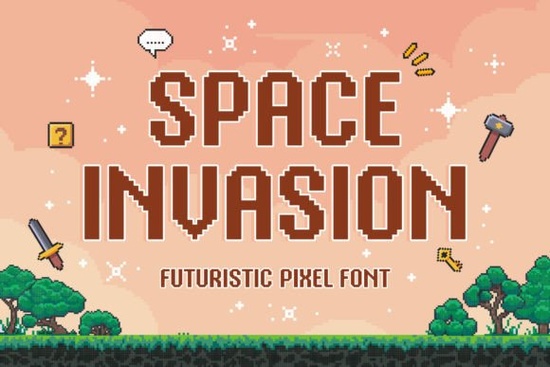
If you're working on a project that blends retro gaming vibes with sci-fi aesthetics, the Space Invasion Font might be exactly what you need. This pixel-style typeface captures the charm of old-school arcade displays while feeling right at home in modern cyberpunk or space-themed designs. Whether you’re building an indie game, designing merch for a print-on-demand store, or adding flair to a website banner, Space Invasion delivers crisp, nostalgic readability without sacrificing futuristic energy.
Pixel fonts can be tricky they often look dated or too rigid but Space Invasion strikes a balance. Each character is crafted with intentional spacing and clean geometry, so it scales well across digital and print formats. That makes it especially useful for creators who need consistency whether they’re mocking up a mobile game UI or printing T-shirts with alien-themed slogans.
What kinds of projects work best with Space Invasion?
This font shines in contexts where atmosphere matters as much as message. Think:
- Indie video game titles, HUD elements, or dialogue boxes
- Sci-fi posters, album covers, or zine layouts
- Cyberpunk-inspired branding for small businesses (think coffee shops with neon signs or tech repair logos)
- Print-on-demand products like mugs, phone cases, or wall art featuring retro-futuristic quotes
Because it’s monospaced and built on a grid, Space Invasion also pairs well with other design elements like glitch effects, scan lines, or vector-based starfields common touches in digital art communities.
How does it compare to other display fonts?
Not all display fonts carry the same mood. If you’ve used something like the Junior Play Font, you know it leans playful and rounded great for kids’ content but not for intergalactic battles. Similarly, the Grunge Groovy Font brings a 70s rock vibe that clashes with sleek tech themes.
On the other hand, if your project leans vintage but not spacey, you might consider the Vintage Monograms Pack for elegant initials, or the Greek Varsity Font for collegiate or athletic energy. But when your vision includes laser guns, alien invasions, or dystopian cityscapes, Space Invasion fits naturally without forcing the theme.
And yes if you’re wondering how it stacks up against similar pixel fonts out there, Space Invasion Font stands out for its consistent stroke width and legible lowercase set, which many free pixel fonts skip entirely.
Tips for using Space Invasion effectively
Because it’s a display font, avoid using it for long paragraphs. Stick to headlines, buttons, labels, or short phrases. Here’s how to get the most out of it:
- Pair it wisely. Use a clean, neutral sans-serif (like Inter or Roboto) for body text so the pixel style doesn’t overwhelm.
- Mind the size. It looks best at medium to large sizes below 16px, details may blur on screens.
- Add subtle effects. A soft outer glow or slight color gradient can enhance its digital feel without breaking the pixel illusion.
- Test in context. If you’re designing for print, check how it renders on fabric or paper some textures can soften sharp pixels.
For hobbyists and small shop owners, having a go-to font that instantly communicates a theme saves hours of trial and error. Space Invasion isn’t just decorative it’s a storytelling tool.